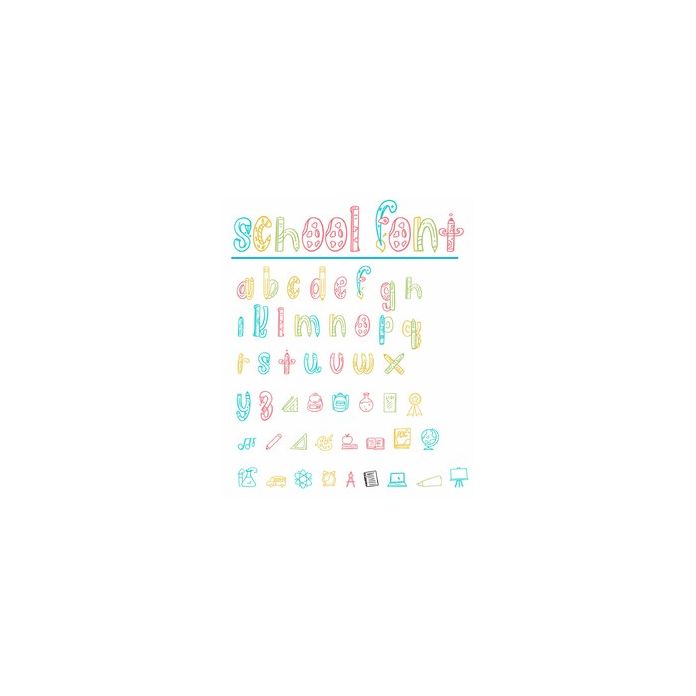
This is the colored Outline Version of the School Font. It contains small letters and school icons. The school icons can be typed with ALL Capitals. Use it to enrich your school projects. Ideal for quotes and headlines.